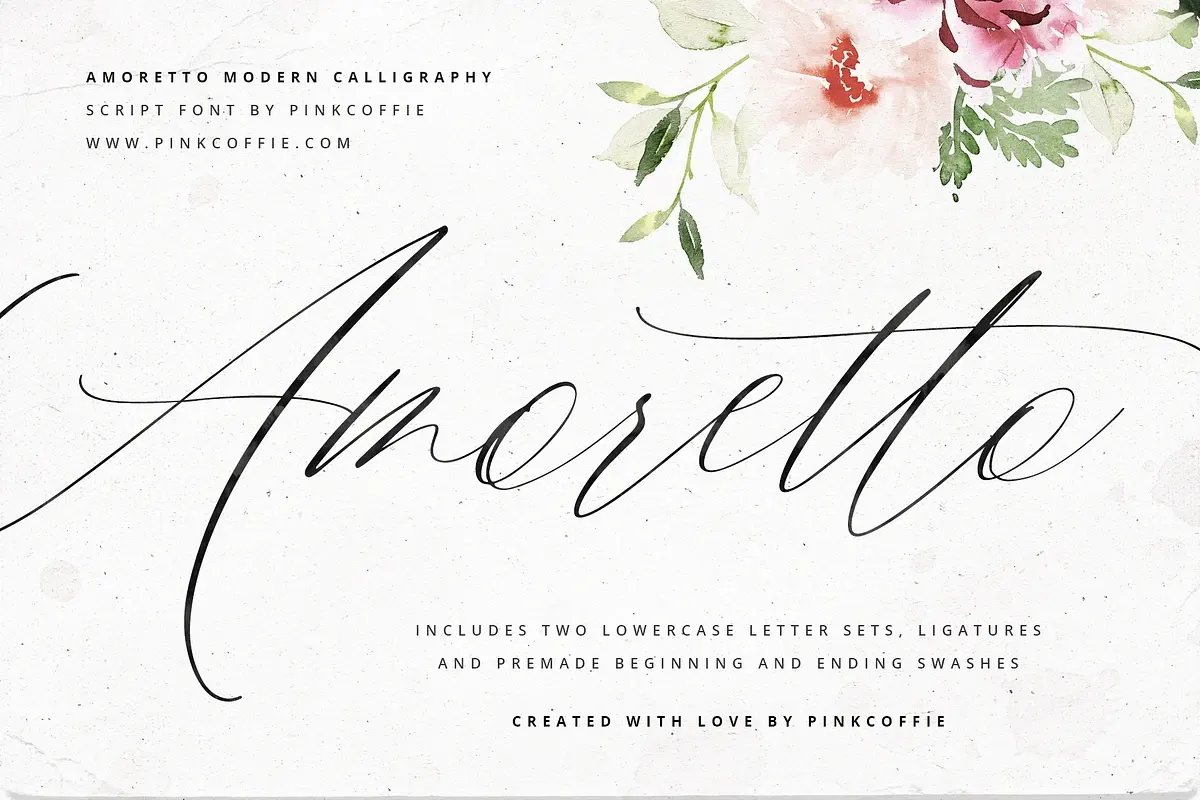
Amoretto | Modern Calligraphy Script Free Download
Amoretto | Modern Calligraphy Script Free Download is an elegant and stylish script font that adds a sophisticated, handwritten feel to your designs. Perfect for wedding invitations, branding, logos, and greeting cards, Amoretto exudes a timeless charm with its flowing curves and artistic strokes. Its graceful letterforms make it ideal for projects that require a personal, romantic touch.